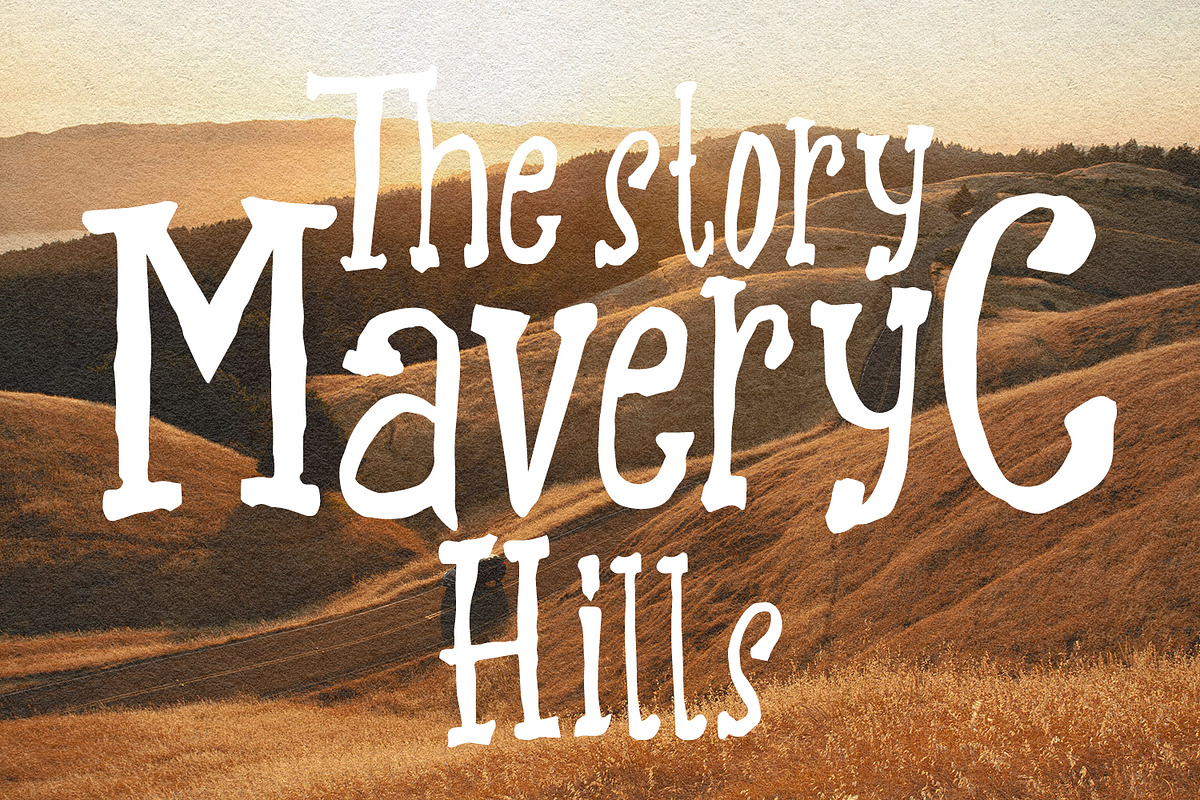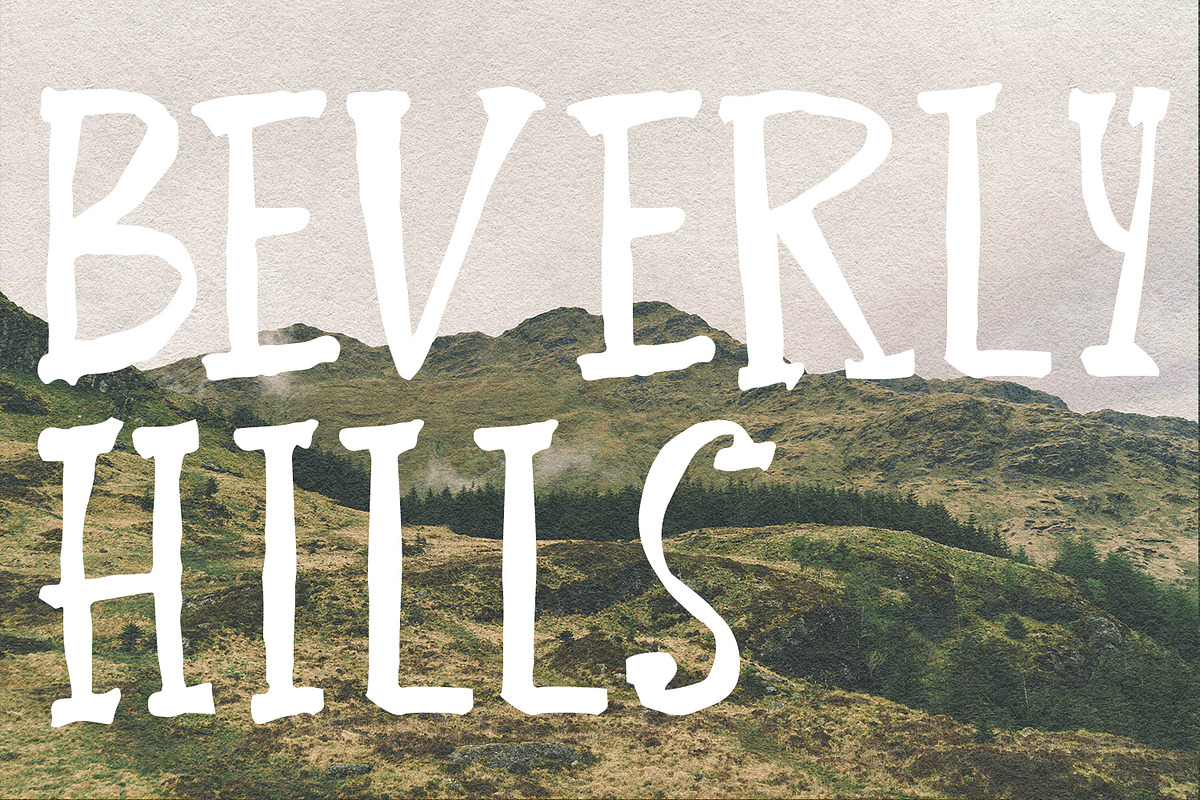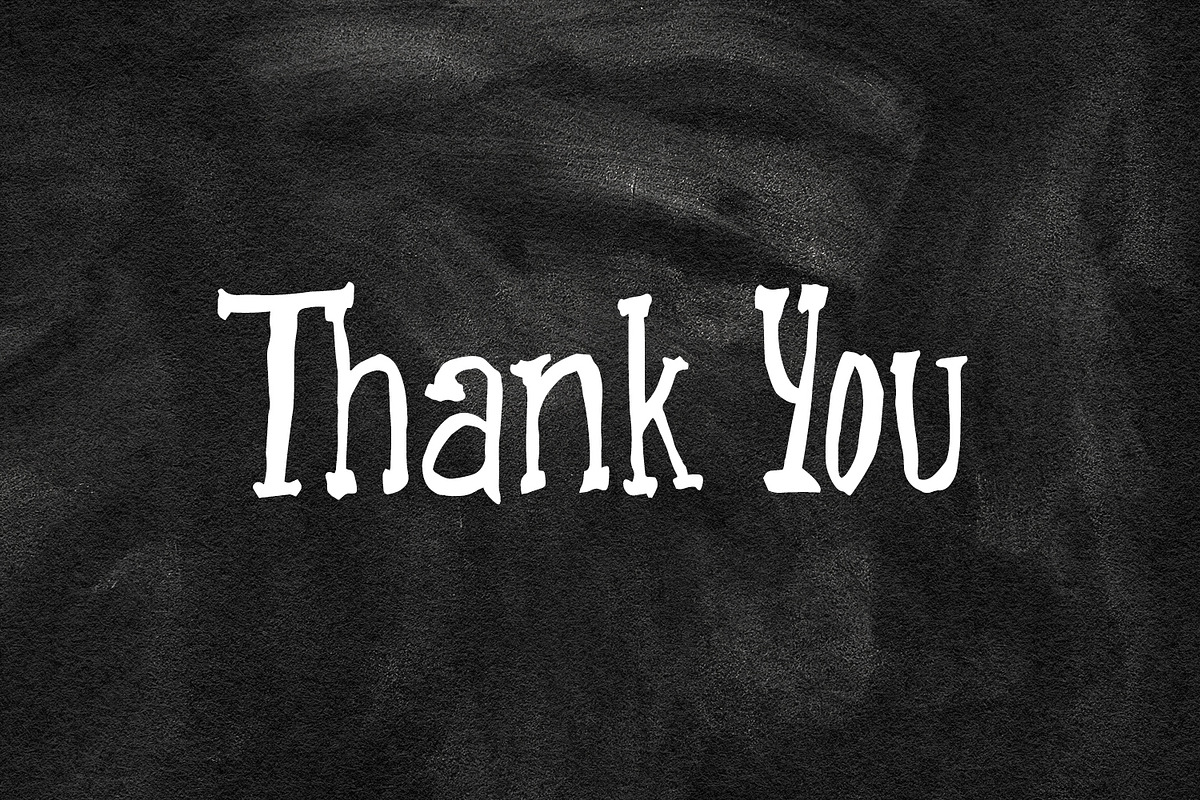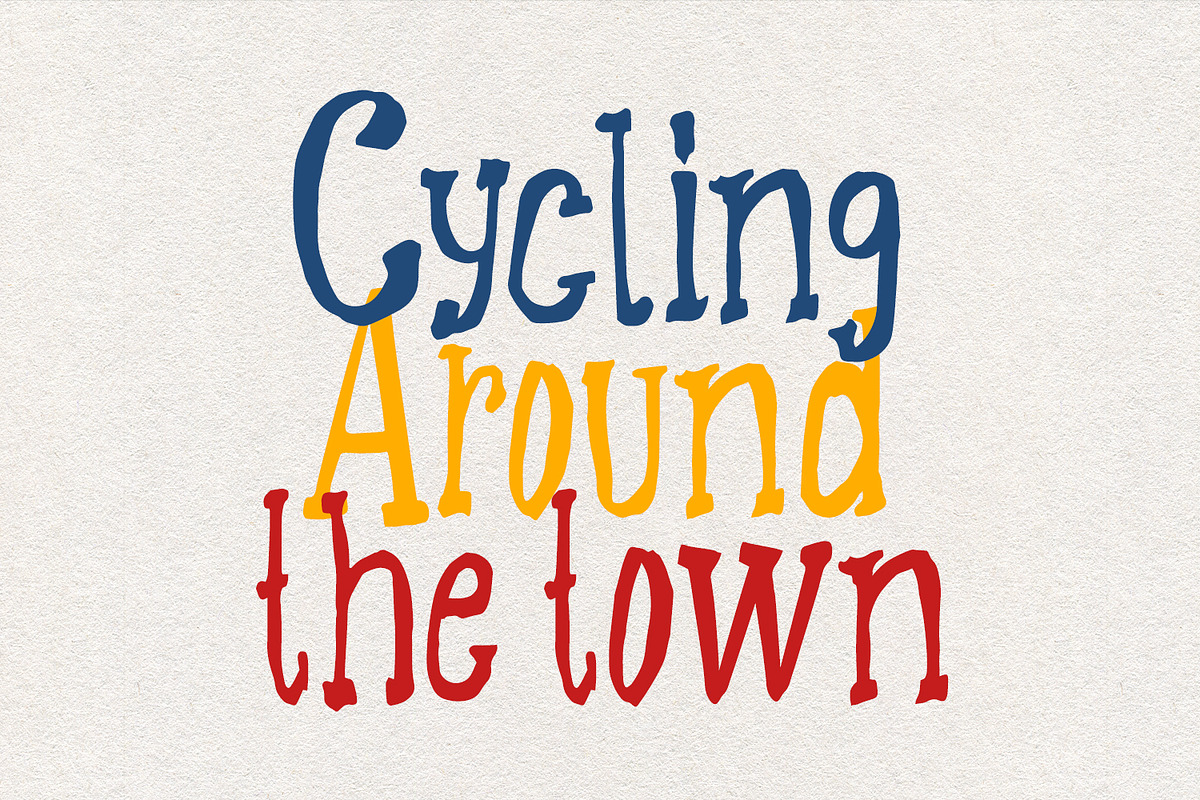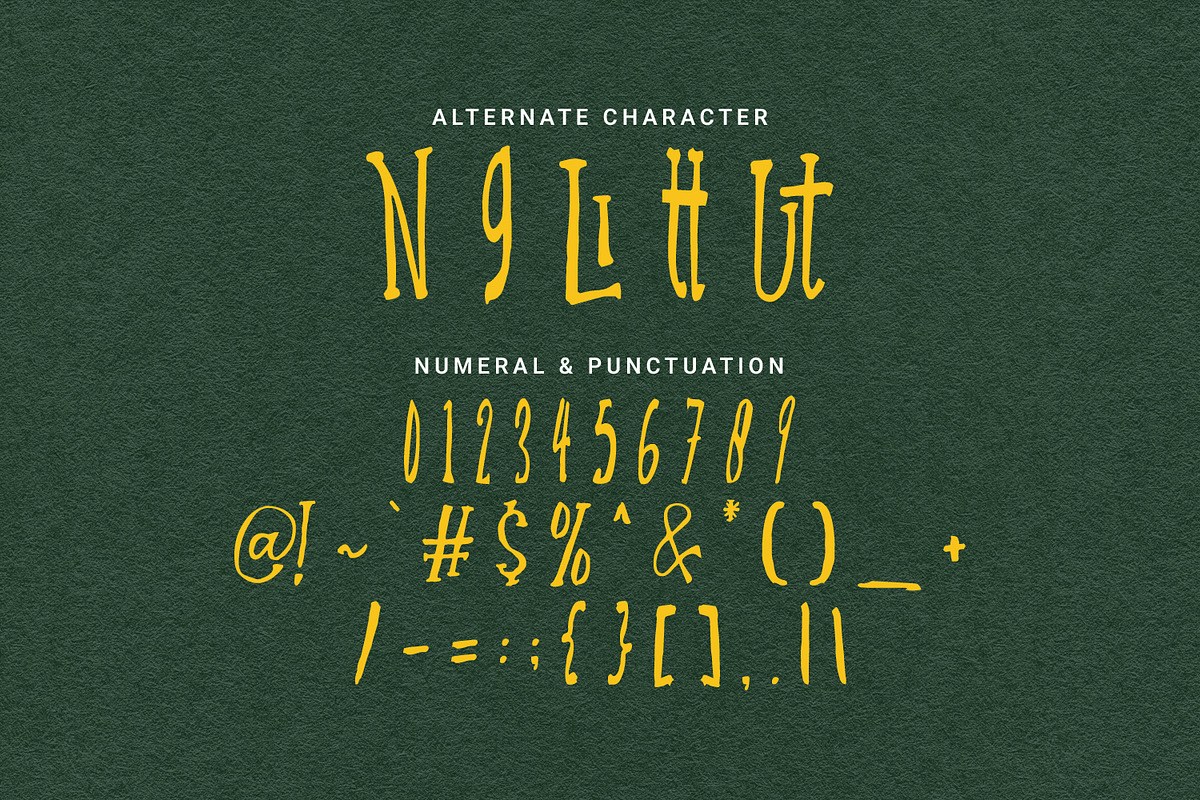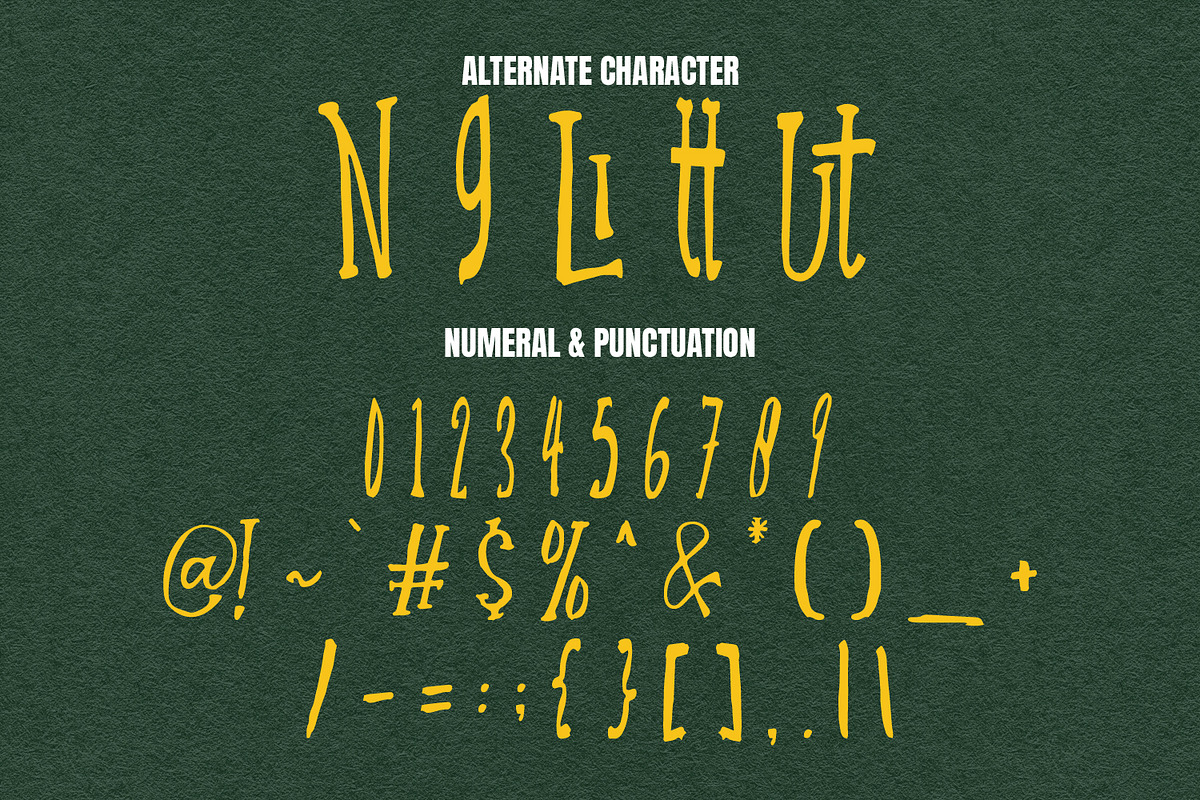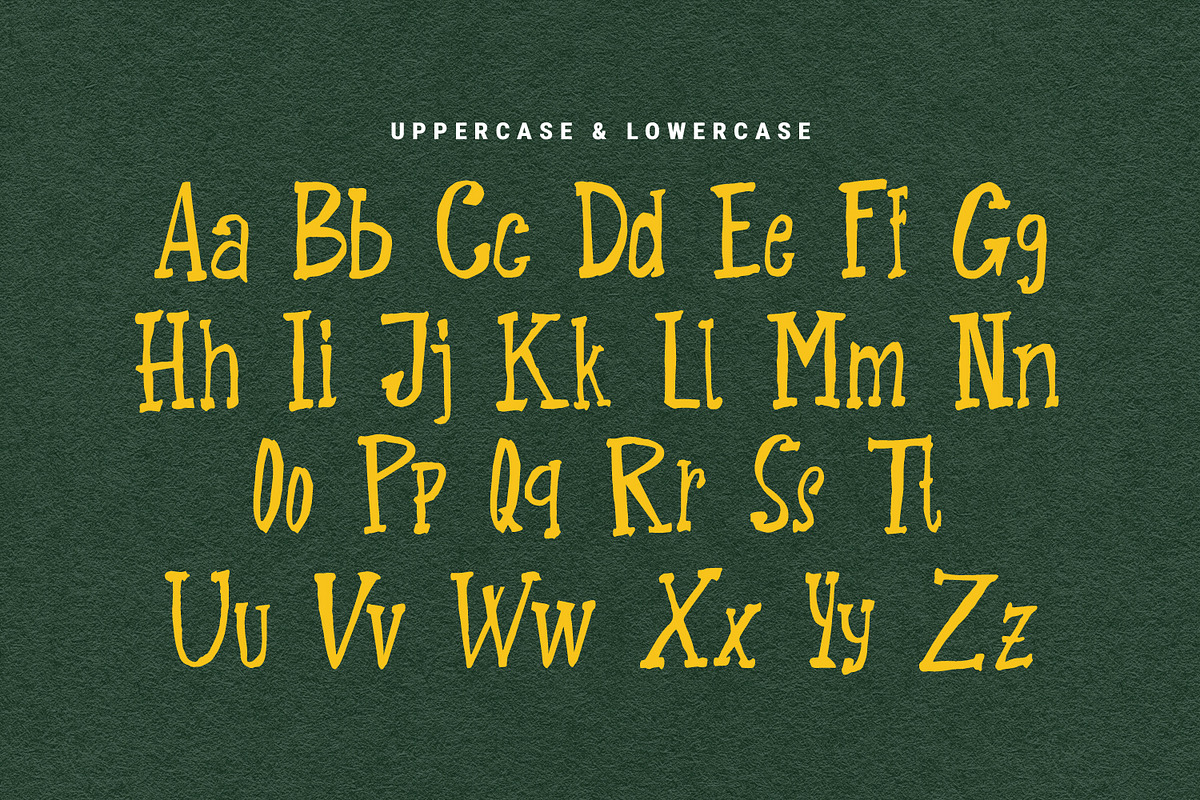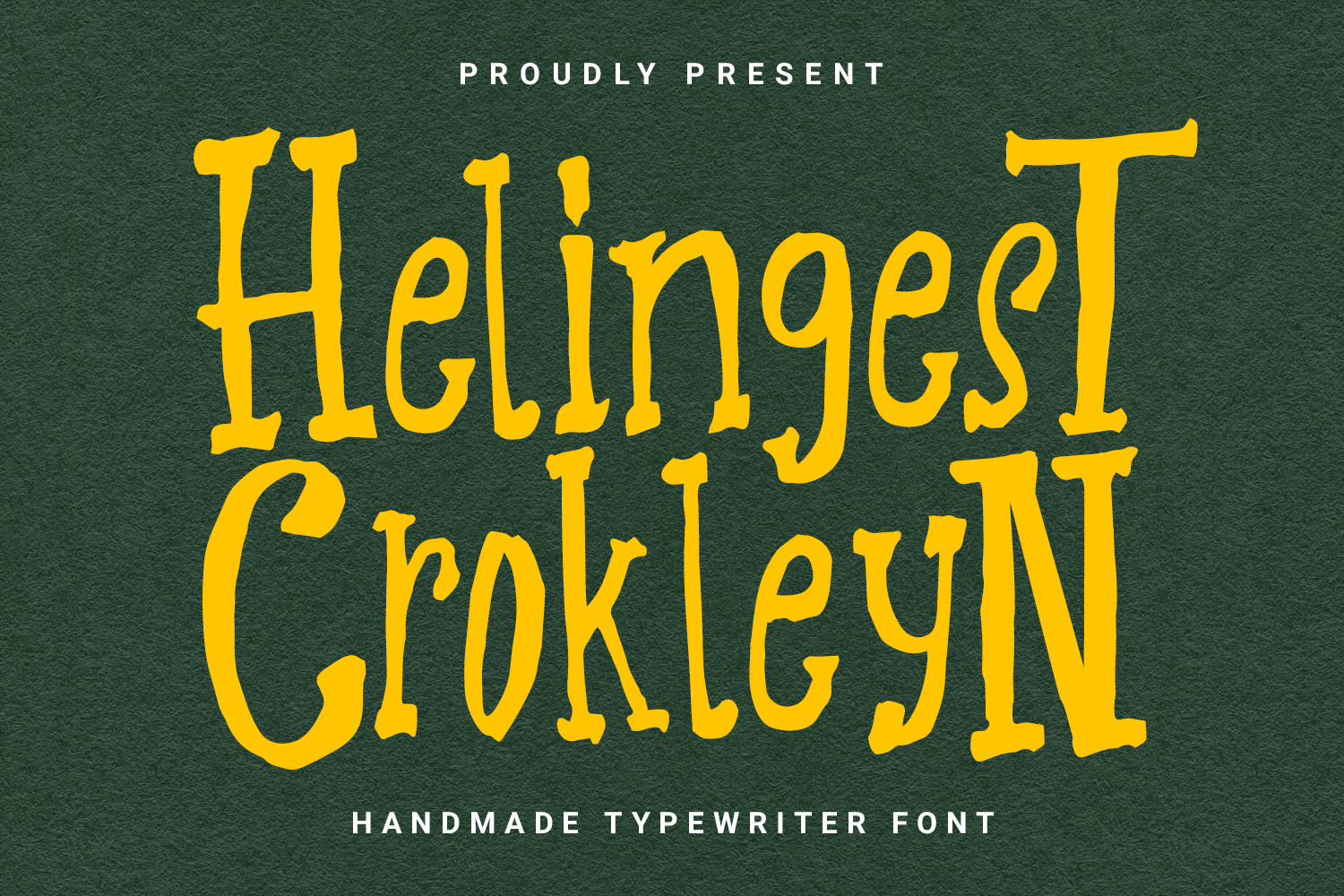
Helingest Crokleyn Handmade Typeface
Helingest Crokleyn handmade brush typewriter display font, fun character with alternates and ligatures. To give you an extra creative work. Helingest Crokleyn handmade brush display font support multilingual language.